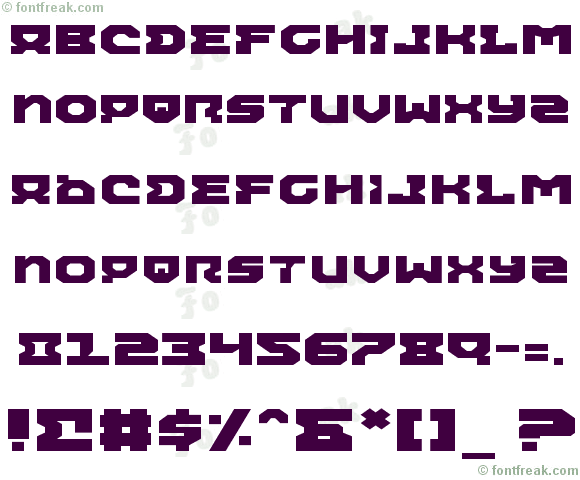
Airacobra
About Airacobra
Airacobra, designed by Iconian Fonts in 2002, is a striking display typeface that merges boldness with a unique aesthetic appeal. This font belongs to the category of decorative typefaces, showcasing a distinctive geometric style that captures attention. The Airacobra font features thick, extra bold strokes that create a commanding presence, complemented by an italicized slant that adds a dynamic flair. Its condensed form allows for effective use in tight spaces, while the expanded versions offer versatility for larger displays.
The font’s visual characteristics are notable, with its block-like letters and sharp angles creating an avant-garde look. The spacing between characters is carefully considered, allowing for readability while maintaining an impactful appearance. The design is devoid of overly intricate decorative elements, which ensures that the focus remains on the strong shapes and forms of each letter. This simplicity combined with boldness makes Airacobra particularly suitable for a variety of creative applications.
Best use cases for the Airacobra font include movie posters, where its strong characters can evoke a sense of drama and excitement; branding for tech startups, where modernity and innovation are key; eye-catching signage for events; and even video game artwork, where its unique style can align with thematic elements. The font appeals to graphic designers, small business owners, and content creators who seek to make a memorable impression.